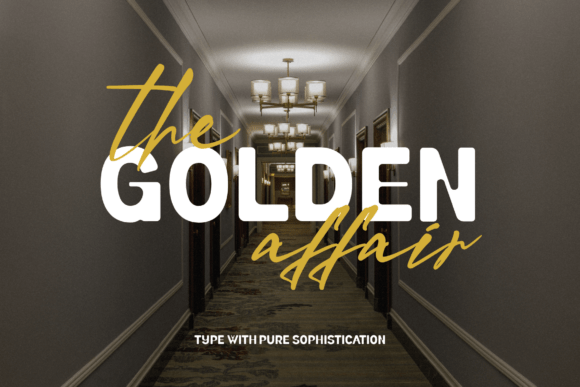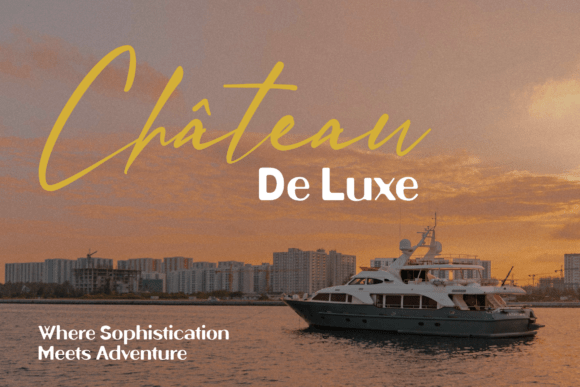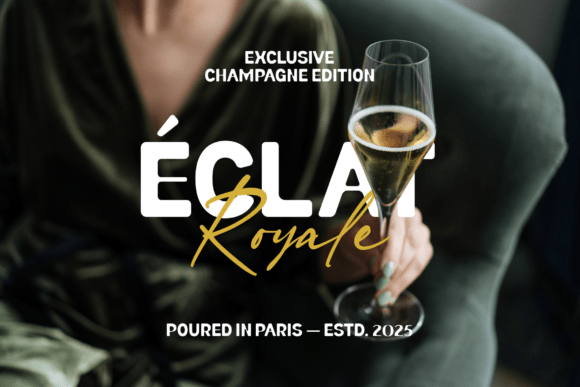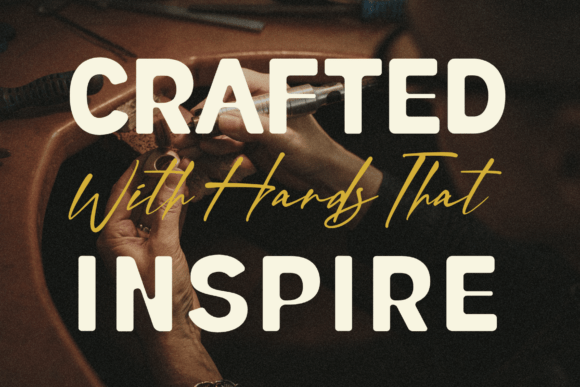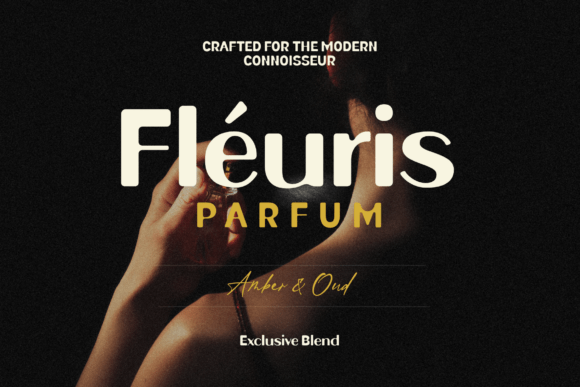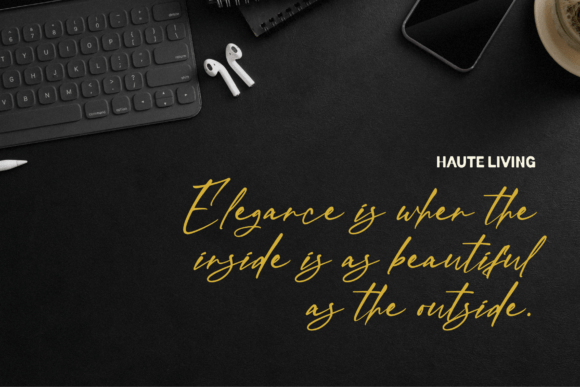
Introduction to Maison Époque Duo Font
Indulge in timeless finesse and bold elegance with Maison Époque, a remarkable fusion of contemporary sans serif and sophisticated handwritten script.
Specially crafted to infuse your projects with class and distinction, this versatile pairing strikes the perfect balance between robustness and delicacy From luxury branding to chic logos, from opulent packaging design to fashion and lifestyle editorials, and from plush wedding invites to promotions for elite perfume, champagne, and boutiques, Maison Époque is ideal for high-end design.
Key Features of Maison Époque Duo Font